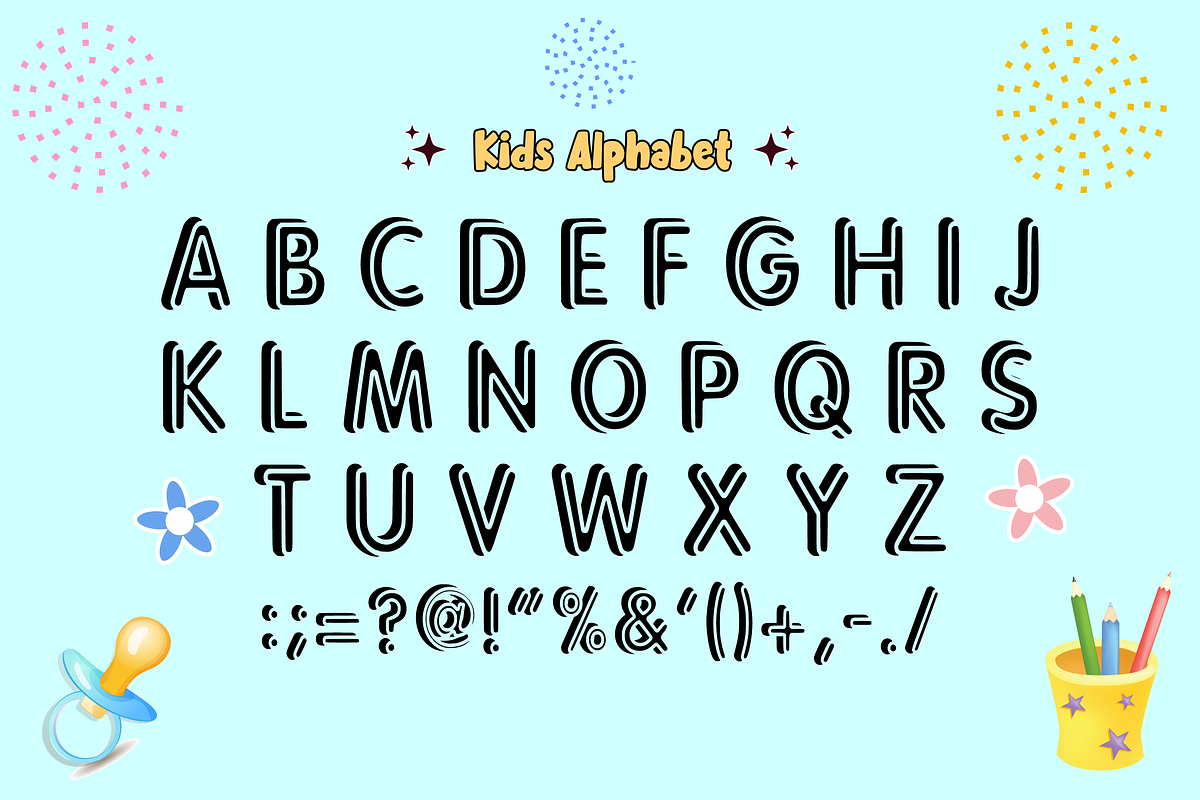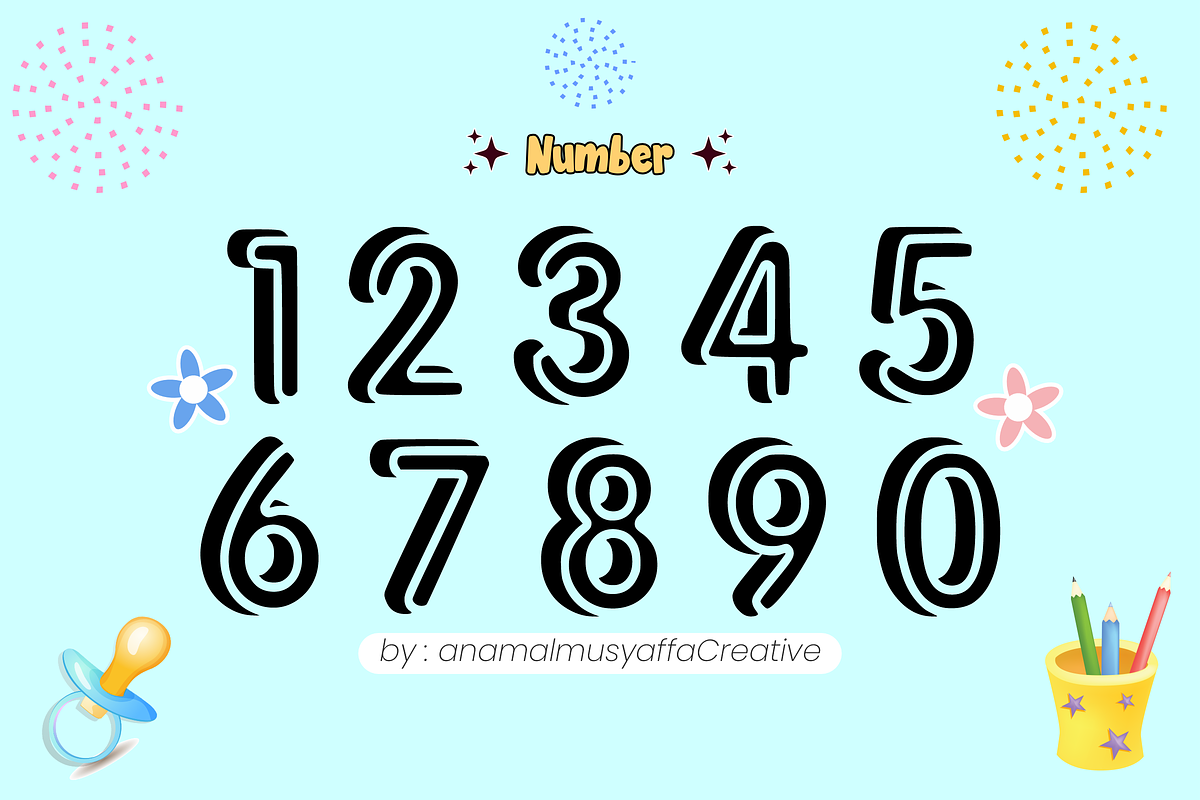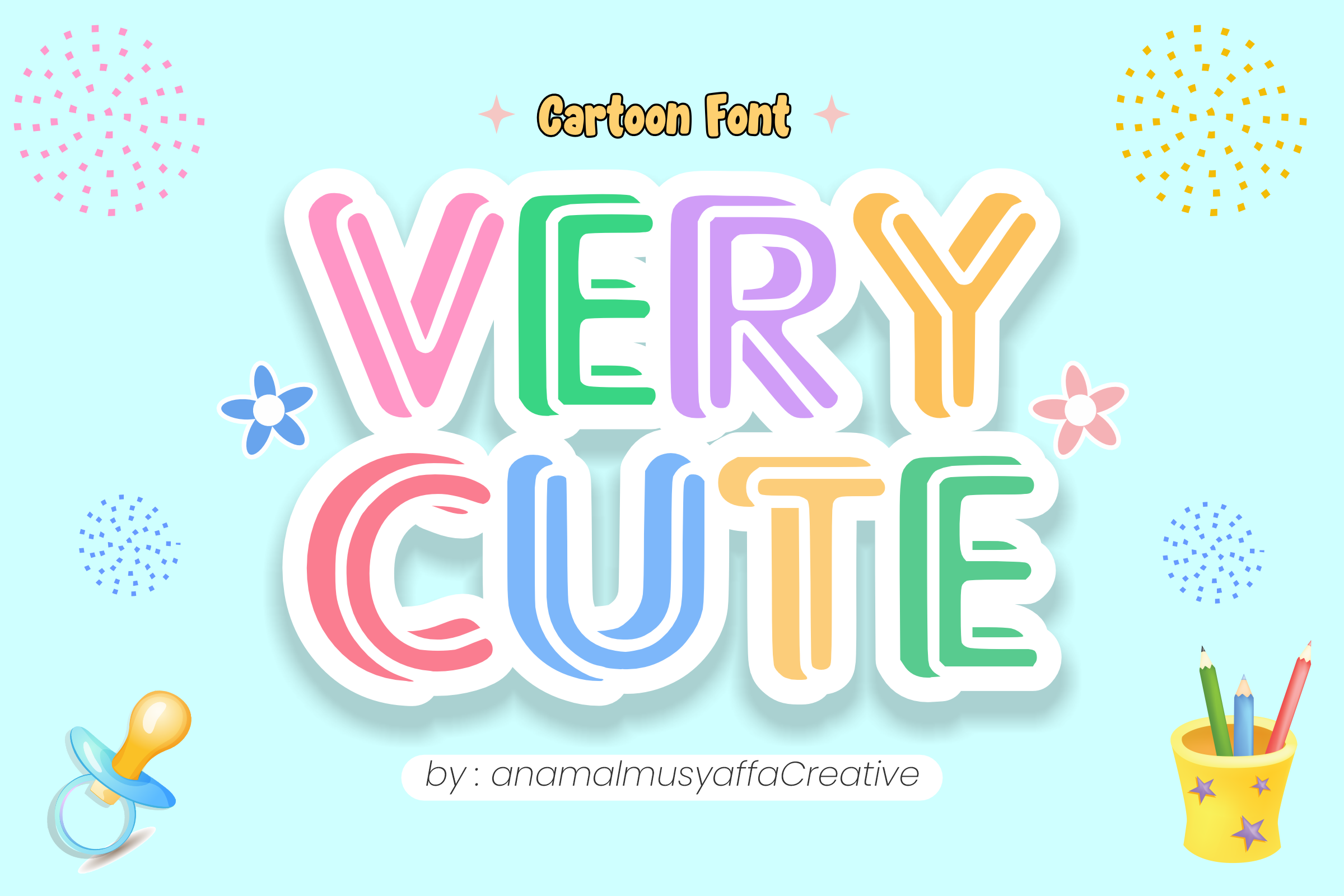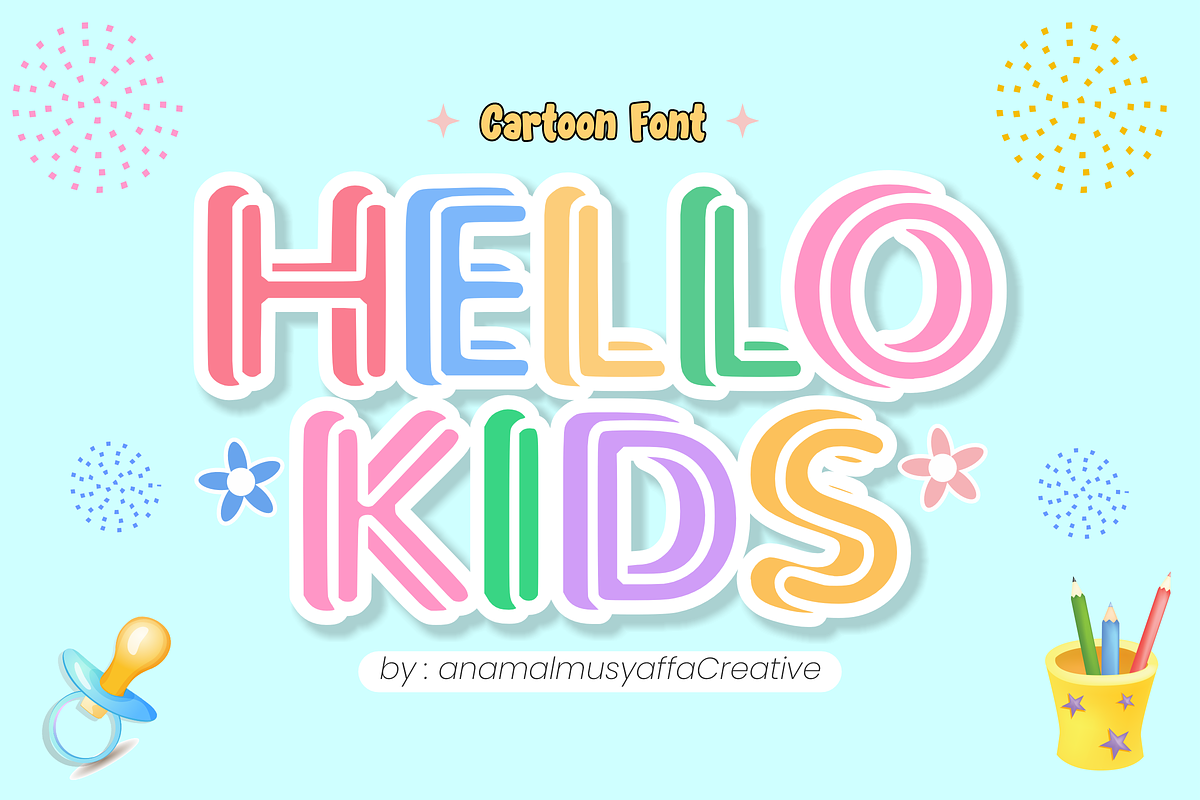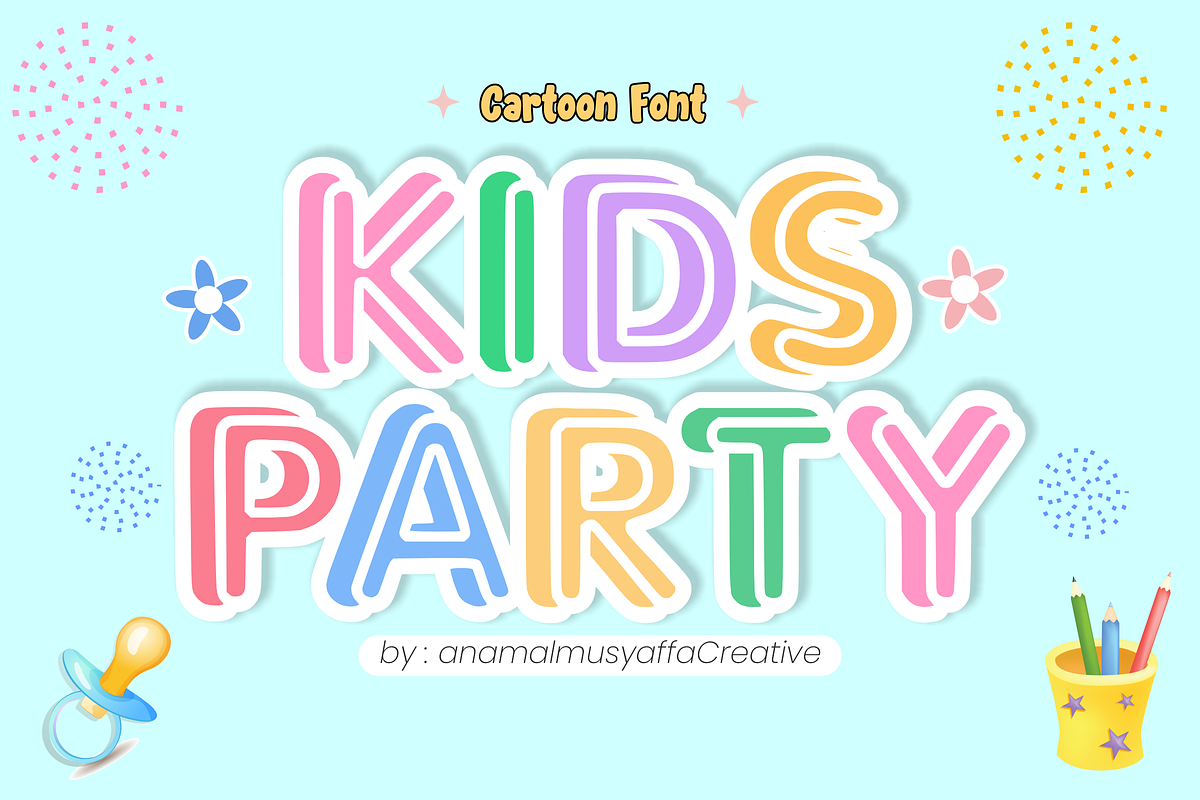
Very Cute - Display Font
✨ Very Cute - Playful & Bubbly Display Font 🎀
Add a splash of happiness to your creative projects with Very Cute! True to its name, this display font features a cheerful, rounded aesthetic with a unique "inline" detail that gives it a fun, 3D layered look. It’s designed to capture the sweet and energetic essence of childhood, making every word look like a celebration.
Perfect for designers who want a bold yet friendly typeface that stands out on both light and dark backgrounds. Let your imagination run wild with a font that is as "Very Cute" as your ideas! 🌈
🌟 Key Features: Playful Uppercase Alphabet (Bold & Bubbly) 🔠
Numbers & Essential Symbols (Clean & Fun) 🔢
Unique Inline-Outline Style (Adds depth and character) ✨
Optimized for Legibility: High-impact shapes for headlines 👁️
🚀 Perfect For: Kids' Branding & Baby Products 👶
Birthday Invitations & Party Stationery 🎂
School Posters & Educational Materials 📚
Custom Stickers, Apparel & Merch 👕
YouTube Thumbnails & Social Media Content 📸
Nursery Decor & Wall Art 🖼️
Make your designs irresistible with the charm of Very Cute! 🎈